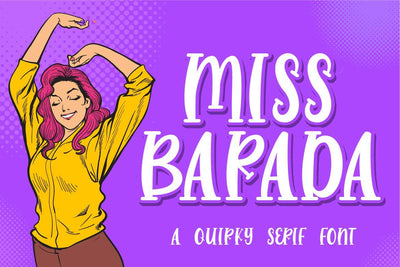
Miss Barada - a Quirky Serif Font
Introducing of our new product the name is Miss Barada a Quirky Serif Font. Miss Barada inspired by Comic Style this font is a fun theme very good for kids, comic, food logo, food menu, wedding invitation, logotype and etc